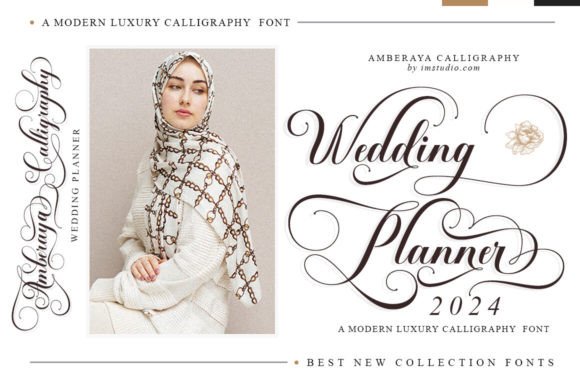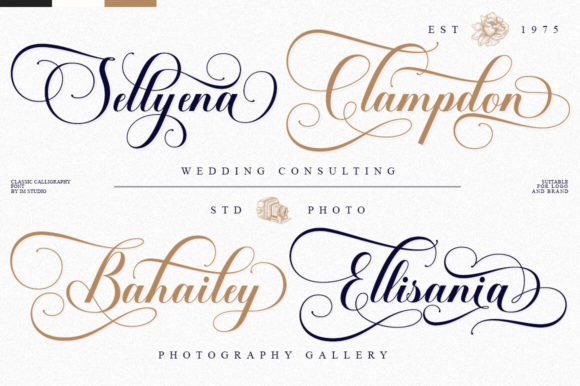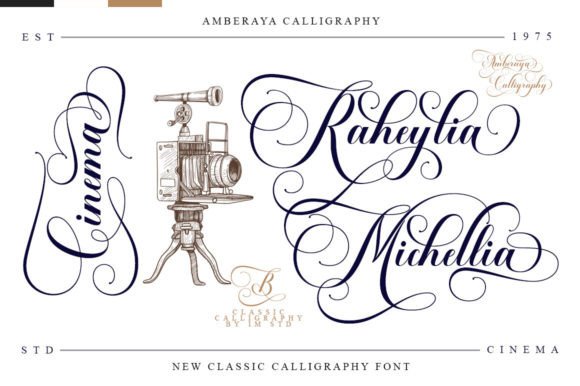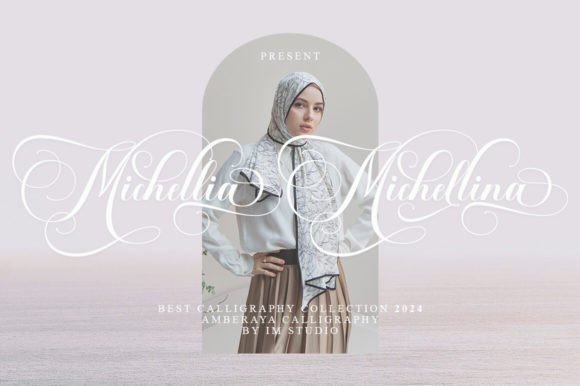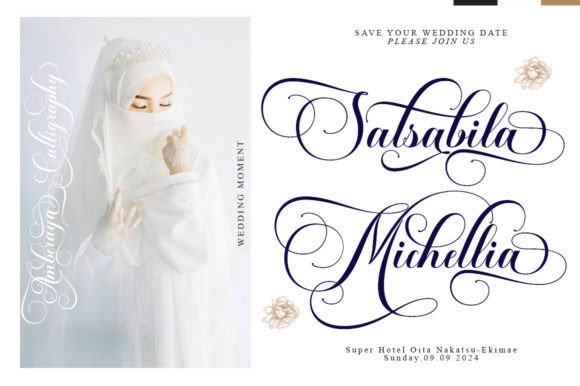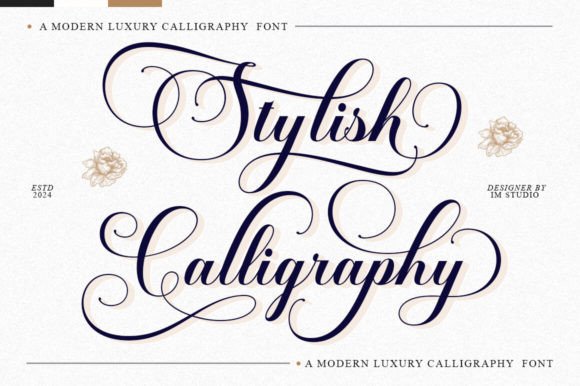
Amberaya Calligraphy Font
Amberaya Calligraphy is a delicate, elegant, and timeless font. It has beautiful and well-balanced characters and as a result, it matches a wide pool of designs. Add it to your most creative ideas and notice how it makes them come alive!